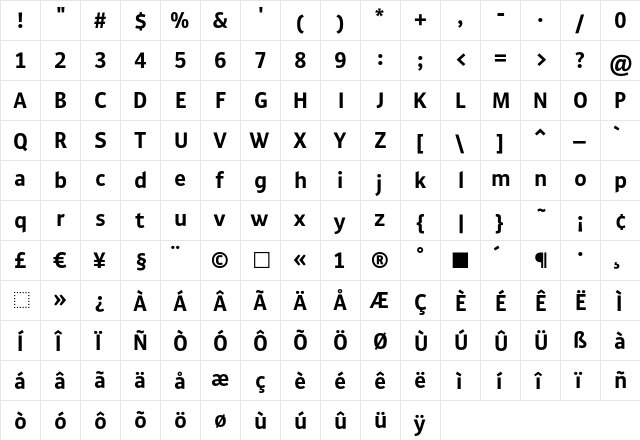
GakSans Bold
Design Context for GakSans Typeface
GakSans is a composed and adaptable typeface that performs quietly and consistently across a wide range of design contexts. Its bold stroke weight gives it real presence on the page.
Pro Tip: Pair GakSans with a font of contrasting weight or personality to build a more expressive typographic hierarchy.